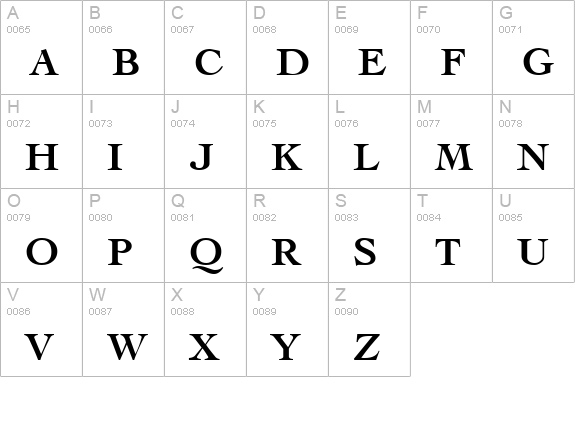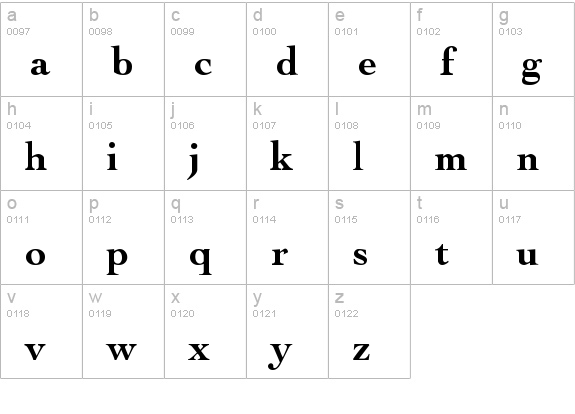
Cocktail Bold Font Details
Cocktail Bold is a strong, high-contrast variant in the Cocktail typeface family \xE2\x80\x94 well suited to headlines, attention-grabbing titles, and strong calls-to-action.
Cocktail Bold font is a stunning and elegant typeface that exudes a sense of sophistication and style. With its bold and eye-catching design, this font is perfect for creating attention-grabbing headlines, logos, and branding materials. The clean lines and modern aesthetic of Cocktail Bold make it versatile and suitable for a wide range of design projects. The best part? Cocktail Bold font is available for free download at FontsMarket.com. Whether you're a designer looking to add a touch of flair to your projects or a business owner seeking a distinctive font for your brand, Cocktail Bold is the perfect choice. Download now and elevate your designs with this striking and versatile typeface.